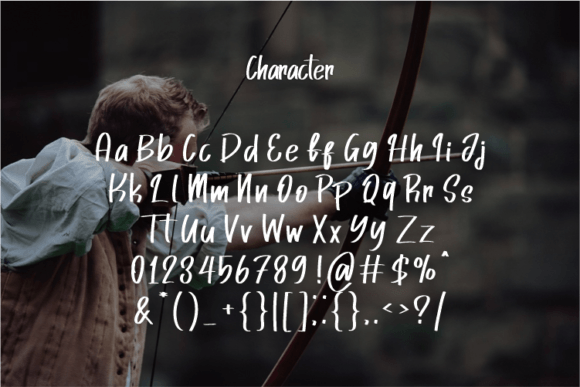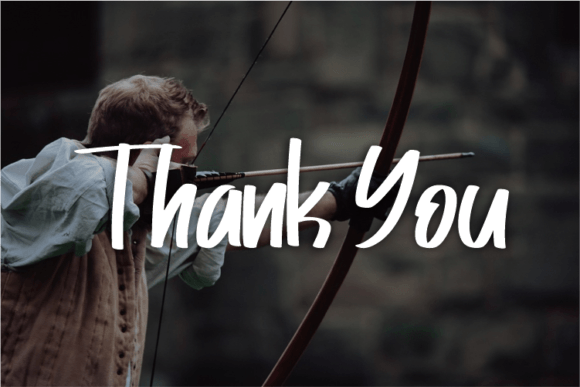
First Games Font
First Games Font – A Stylish Script Typeface for Modern Design
First Games Font is a sleek and modern script typeface designed for projects that need a touch of elegance and minimalism. With its smooth curves and clean design, this font blends simplicity and sophistication—perfect for both digital and print applications.
Designed for Contemporary Creators
Whether you’re designing a luxury logo, a fashion label, or a movie poster, First Games Font offers the flexibility and charm to suit a wide range of projects. It’s tailored for professionals and creatives who want their typography to feel stylish without being overcomplicated.
Use it for:
• Elegant logos
• Movie and book title designs
• Fashion brand identities
• Magazine layouts and covers
• Clothing and merchandise
• Social media graphics
• Quote designs and promotional content
Its versatility makes it a perfect go-to font for upscale, trendy, and refined visual work.
Simple, Yet Striking
First Games Font features a handwritten script look with a smooth, polished style. The gentle slant and natural flow of the characters make it feel personal while maintaining a clean and professional appearance.
Font highlights include:
• A modern script aesthetic suitable for luxury branding
• Elegant ligatures and well-crafted letterforms
• Smooth curves and consistent strokes for a polished feel
• Readability across various sizes and formats
Thanks to its minimalist beauty, this font fits both creative and corporate needs.
Stand Out with High-End Typography
Typography is a vital part of your brand’s identity. With First Games Font, you can ensure your visuals are both elegant and memorable. The font’s luxurious appearance makes it ideal for upscale fashion lines, editorial work, or even cinematic title sequences.
When used on logos, the font radiates confidence and clarity. On editorial pieces, it enhances the reading experience without overwhelming the design. Its graceful script makes it an excellent choice for subtle but impactful communication.
Perfect for Branding & Visual Identity
First Games isn’t just a font—it’s a design statement. Whether you’re launching a new product line, branding a boutique agency, or designing impactful quotes for social media, this font adds personality and refinement.
The clean script style evokes trust and elegance, making it suitable for high-end audiences. With its straightforward yet stylish form, First Games helps deliver a message that’s both modern and memorable.